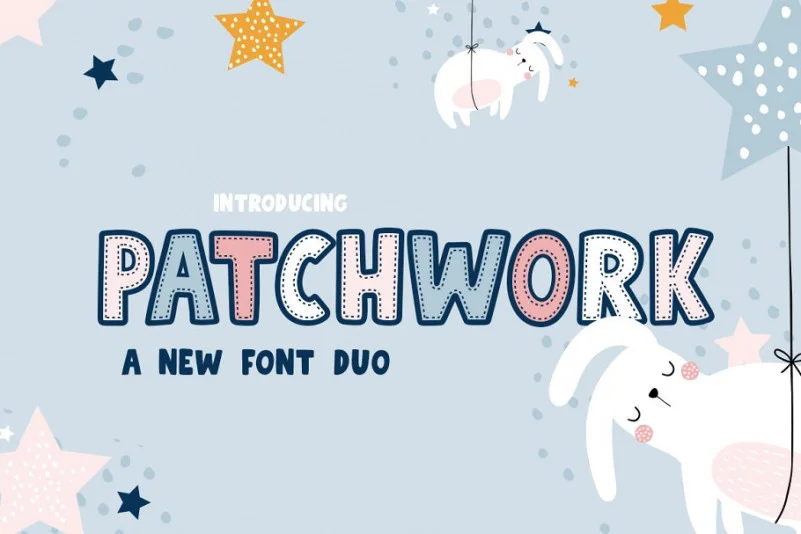
Patchwork Font Duo
Patchwork Font Duo is perfect for handmade craft branding, artisan product packaging, quilting shop signage, creative workshop materials, handcraft blog headers, DIY project instructions, vintage-inspired designs, cozy home decor labels, rustic wedding invitations, farmhouse-style communications, creative hobby materials, and authentic maker brand identities.
What makes Patchwork Font Duo exciting is its charming authenticity that celebrates the beauty of handcrafted artistry through two complementary typefaces that work together like perfectly matched fabric pieces. This delightful font combination captures the warmth and personal touch of traditional needlework and quilting heritage, combining rustic charm with contemporary functionality that resonates with audiences seeking genuine craftsmanship and creative expression. The duo's coordinated personalities create visual interest while maintaining the cohesive aesthetic essential for authentic craft branding. Its handmade character makes it perfect for brands that want to communicate creativity, tradition, and the irreplaceable value of human craftsmanship.
The Patchwork Font Duo family includes two distinct yet harmonious styles featuring regular and decorative variations, with handcrafted alternates, rustic ligatures, and artisan-inspired elements. The character sets incorporate craft-themed symbols, handmade numerals, and authentic stylistic details that enhance the duo's artisan character and provide designers with comprehensive handcraft design solutions.
Whether you're developing artisan brand identities, creating handmade marketing materials, or designing craft-focused communications, Patchwork Font Duo Free Download delivers the authentic charm your handcrafted projects require. This premium font pairing excels in applications where authenticity and creative heritage are essential for connecting with audiences who appreciate traditional craftsmanship and handmade quality. The duo's artisan qualities work magnificently across packaging, signage, and digital applications, making it an invaluable asset for designers serving craft and maker markets. Creative businesses and artisan brands choose this font duo for its ability to communicate genuine craftsmanship while maintaining professional appeal and commercial viability. The comprehensive character sets support multiple languages while preserving the distinctive handcraft aesthetic perfect for international maker applications. Professional designers appreciate the coordinated approach to craft typography and consistent performance across both styles and various applications. When you implement this exceptional font duo in your handcraft communications, you're selecting a complete typography solution that celebrates creative tradition and authentic making, ensuring your brand connects with audiences seeking genuine handmade experiences and traditional craftsmanship values in today's mass-produced marketplace while maintaining the artisan credibility essential for success in creative and maker industries that honor human creativity and traditional skills.